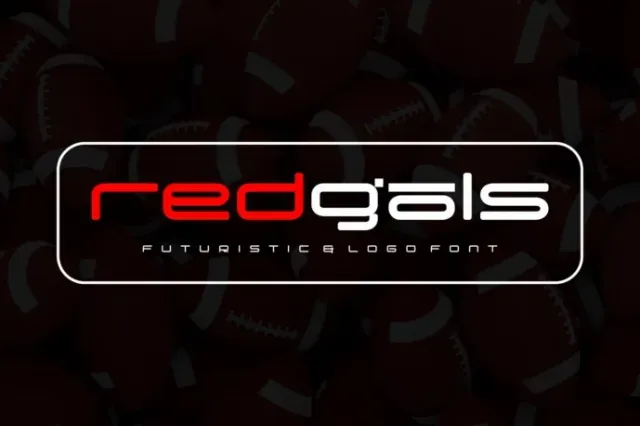
Redgols Font
Redgols Font – Modern Font is a bold and authentic display font. The font is suitable for any branding project like Logo, t-shirt printing, esports and many more. Excellent in a wide range of contexts